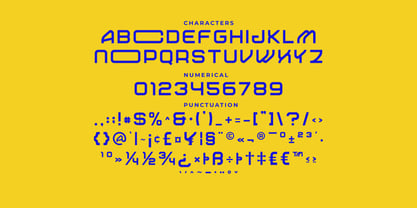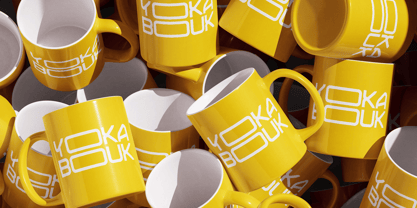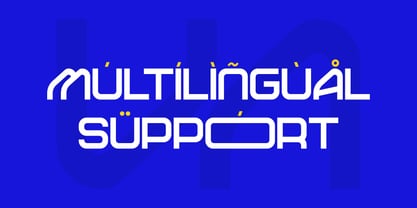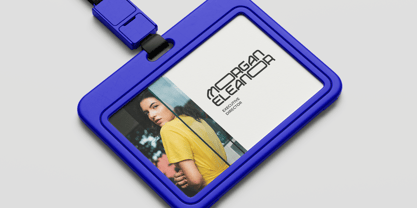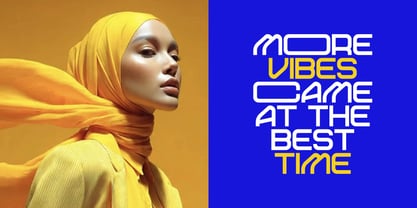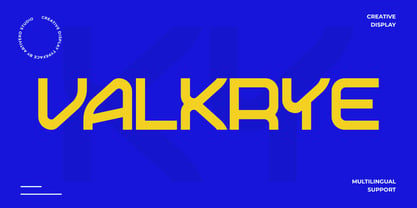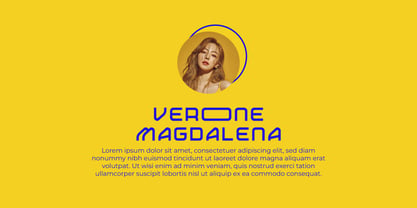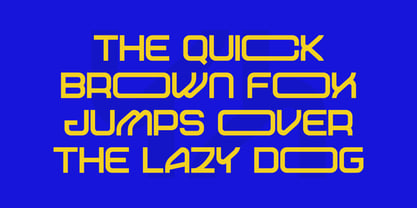
Valkrye
by Artiveko
The Valkrye Font Family was designed by Iwan Alwan and published by Artiveko. Valkrye contains 2 styles and family package options. More about this family
Valkyre is a cutting-edge technology display font crafted for projects that demand a bold, geometric, and forward-thinking visual identity. With its sharp angular details, streamlined curves, wide proportions, and distinctive letterforms, Valkyre establishes a striking digital aesthetic influenced by modern technology and science fiction.
This font is ideal for technology branding, gaming, esports, AI initiatives, software companies, digital products, sci-fi artwork, UI/UX design, posters, headlines, logo design, YouTube thumbnails, and futuristic campaigns, ensuring it commands attention at display sizes. Its unique geometric construction transforms ordinary words into high-tech expressions, making it particularly effective for projects focused on innovation, gaming, robotics, artificial intelligence, space exploration, digital entertainment, and next-generation technology.
Valkyre also offers multilingual support, making it a perfect fit for international creative projects and global brands. Whether for a futuristic logo, a gaming title, a technology campaign, or a digital product interface, Valkyre infuses a sharp and recognizable personality into every design. Valkyre — futuristic typography engineered for the next generation of design.